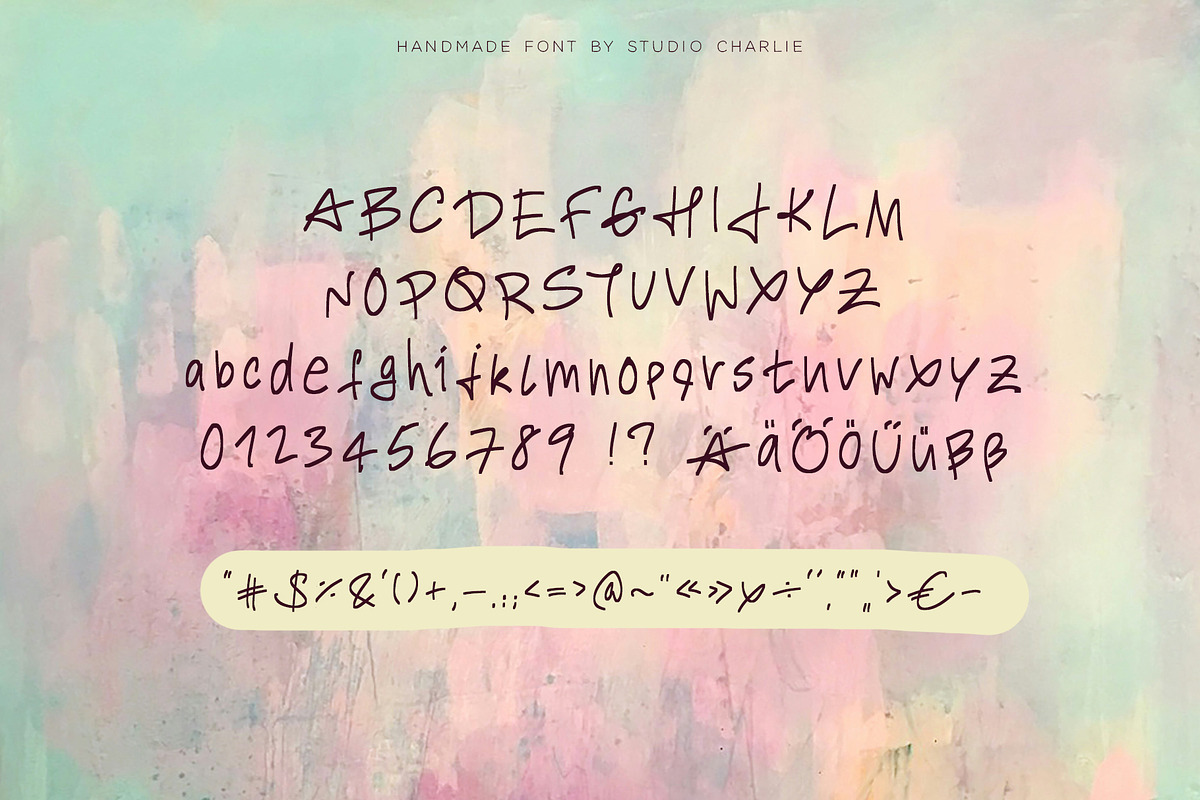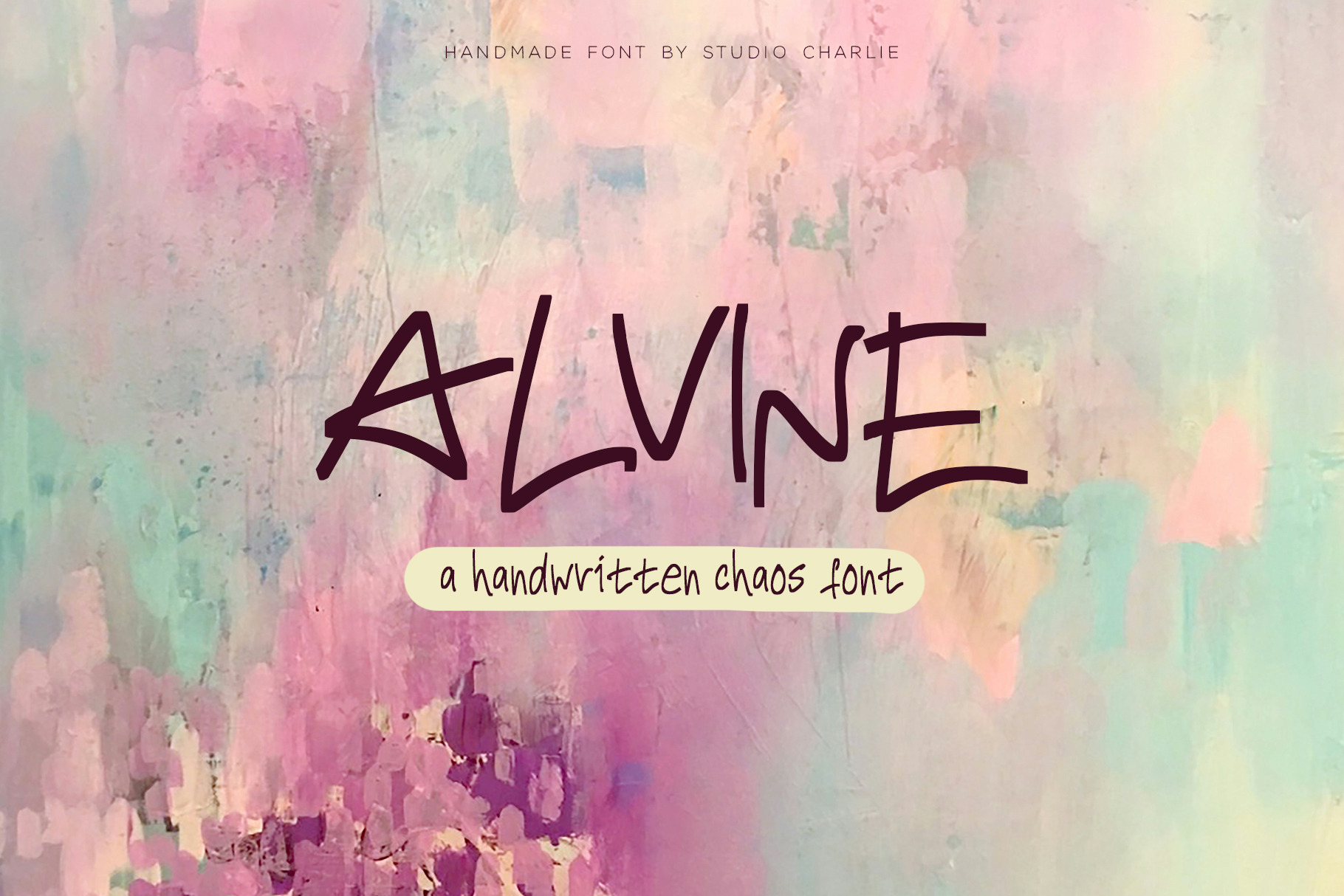
Alvine - A Handwritten Chaos Font
Alvine is a simple and artsy font that supports English and German characters. The OTF font file comes with a full alphabet of both lower- and uppcase letters as well as numbers and punctuation. Some extra glyphs have been added for fun writing.
This font is made of the first letters the kid has written in kindergarten.